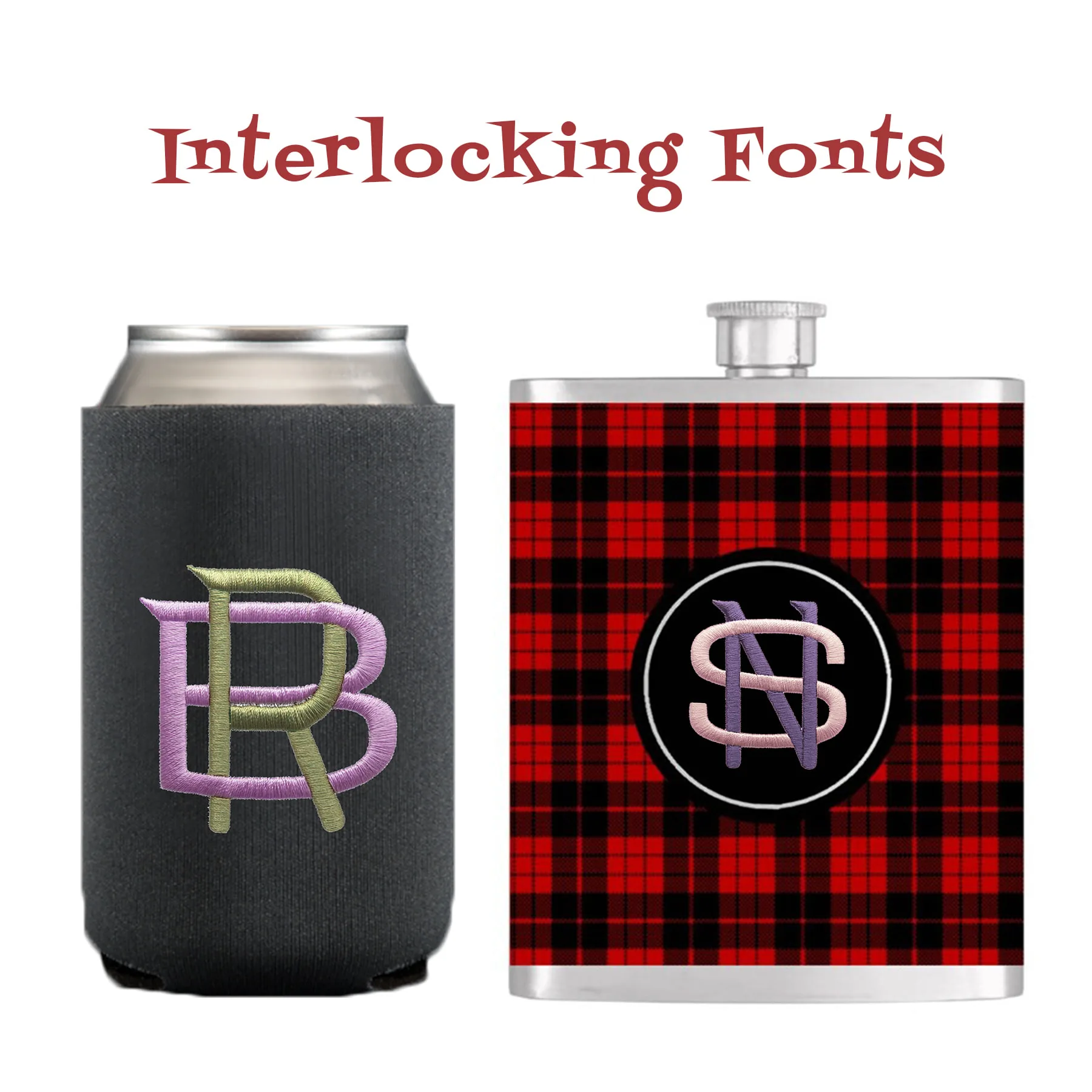
Wings Interlocking Monogram Embroidery Font
Born from a desire to balance classic collegiate geometry with streamlined aerodynamic elegance, the Wings Interlocking Monogram reinterprets traditional heraldry through a clean, architectural lens. Each letterform pairs structured block uprights with graceful, sweeping wing extensions that lock together in effortless harmony. Designed to transcend seasonal trends, this alphabet captures an unmistakably tailored, unisex presence—imparting a commanding dignity to crisp linen shirting, heirloom blankets, and heavy maritime canvas alike.
Project Ideas for Wings Interlocking Monogram
- Bespoke Resort & Casual Wear: Embroider left-chest emblems onto structured linen shirts, garment-dyed pullovers, or tailored pique polo shirts.
- Heavy-Duty Canvas Goods: Elevate rugged boat totes, weekend duffels, and utility dop kits with a bold 4-inch unisex monogram.
- Modern Heirloom Linens: Refresh dinner napkins, table runners, and guest towels with balanced, crisp geometric letter pairs.
- Personalized Outerwear: Add an understated mark to the back yoke of a denim jacket, the chest of a fleece vest, or a wool ballcap.
- Refined Wedding & Anniversary Gifts: Celebrate partner initials interlocked as one unified, sculptural crest on decorative pillow shams and plush bath sheets.
- Left Chest & Pocket Tops: Center the 2-inch or 3-inch monogram roughly 7 to 8 inches down from the shoulder seam and midway between the placket and side seam for a distinguished haberdashery look.
- Corner Diagonal on Table Linens: Orient the monogram at a precise 45-degree angle approximately 1.5 to 2 inches from the hem edge of mitered cocktail napkins.
- Dead Center on Tote Bags: Center the 4-inch motif between the webbed handles, positioned vertically in the top third of the bag's body to ensure balanced visual weight.
- Cuff Accents: Place the 2-inch sizing along the outer cuff edge of tailored sleeves, angled subtly toward the thumb for personalized bespoke flair.
Wings Interlocking Monogram Craft & Letterform Details
Digitizing an interlocking font requires an acute sensitivity to layering and structural tension. Rather than allowing intersecting satin columns to collide and build unmanageable density, each character in the Wings collection is digitized with calculated overlaps and strategic compensation. Stitch pathing flows systematically from background to foreground, maintaining a level, smooth embroidery plane that will not bunch or cup your base textile.
The outer wing motifs taper into fine, needle-sharp satin tips that capture ambient light with brilliant luster. Underneath, a fortified lattice underlay establishes structural stability across varying grainlines, ensuring that straight verticals stay true and diagonal curves do not pull inward. The resulting embroidery delivers crisp edge definition, luxurious tactile dimension, and a balanced silhouette that feels simultaneously heritage-inspired and unmistakably modern.